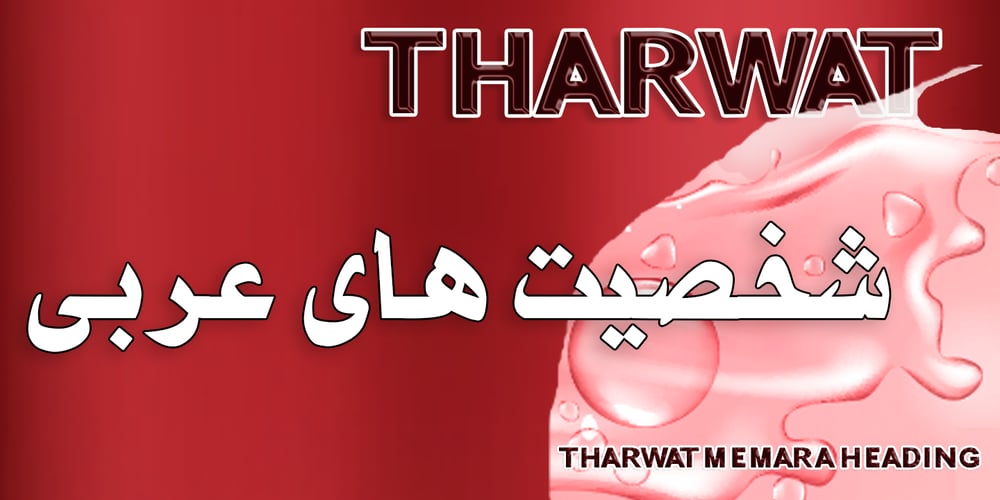
TE Heading Font Family was designed by Tharwat Mohamed Emara and published by Tharwat Emara. TE Heading contains 1 styles and family package options. It is known as the THARWAT M EMARA HEADING (NASKH) Font for its extensive use in the copying and transmission of books because it helps the writer to write more quickly than any other font since the Islamic times and then THARWAT M EMARA HEADING(NASKH) font wrote the “HEADING” And the advantages of THARWAT M EMARA HEADING (NASKH)font are clarifying the letters and show their beauty and splendor